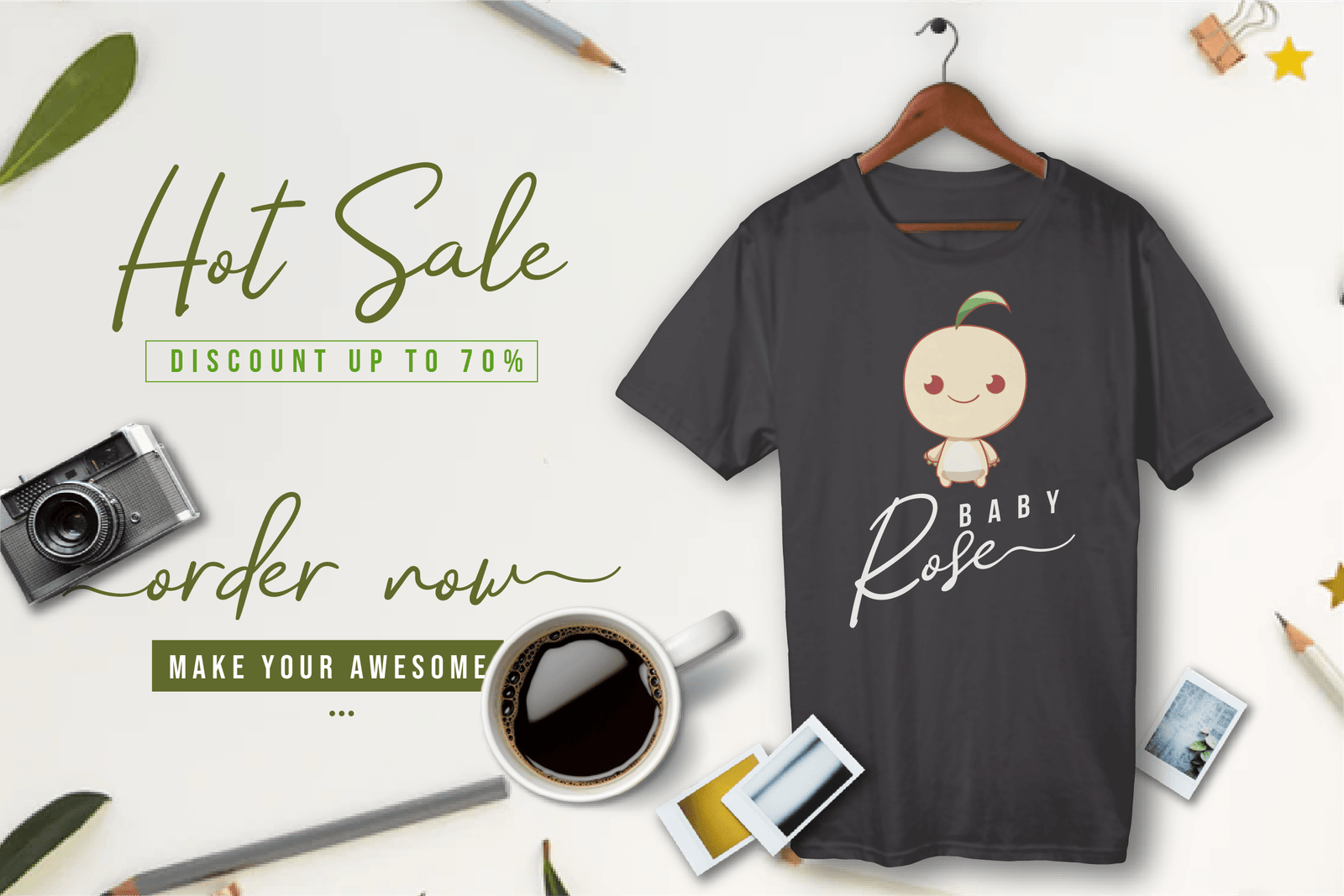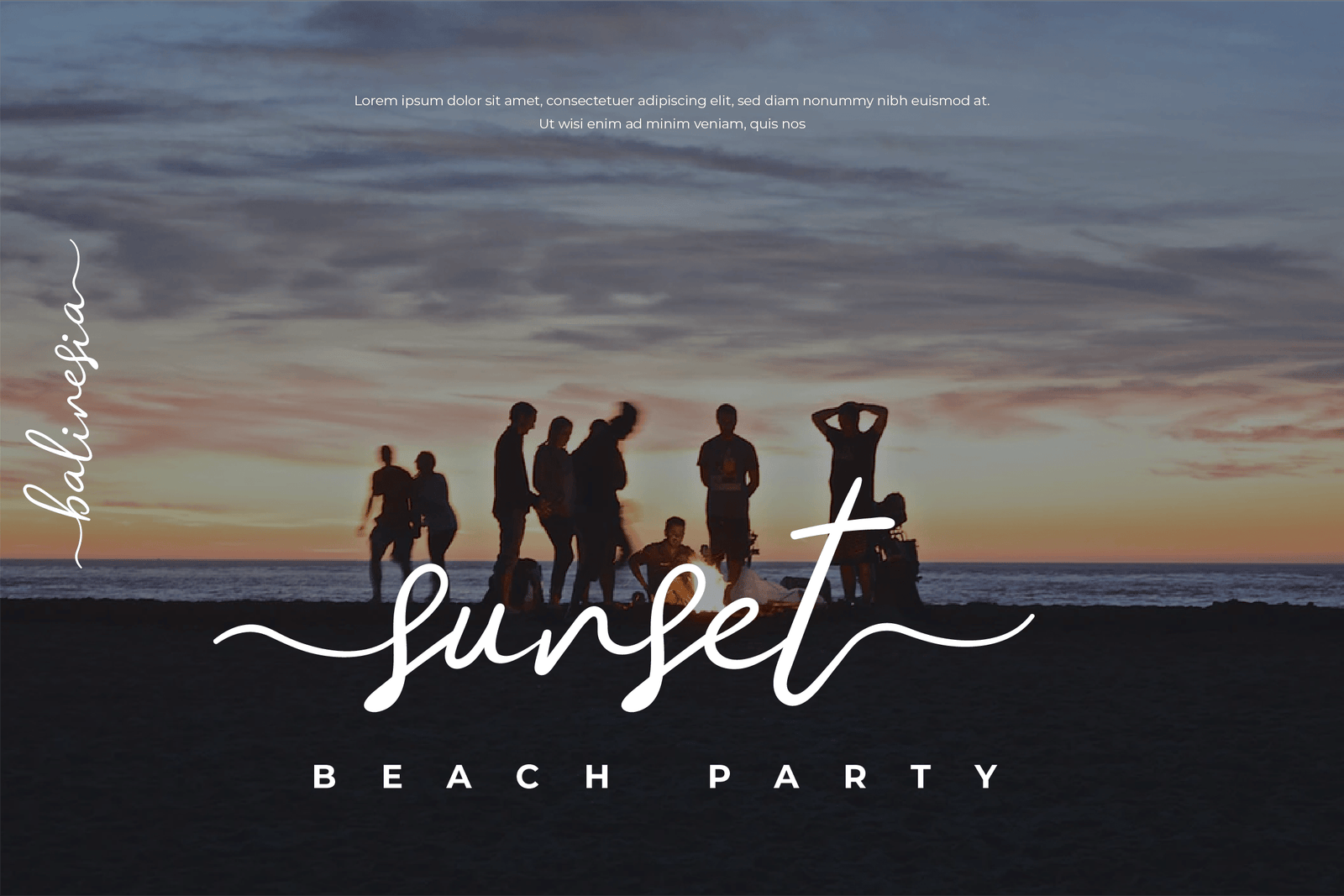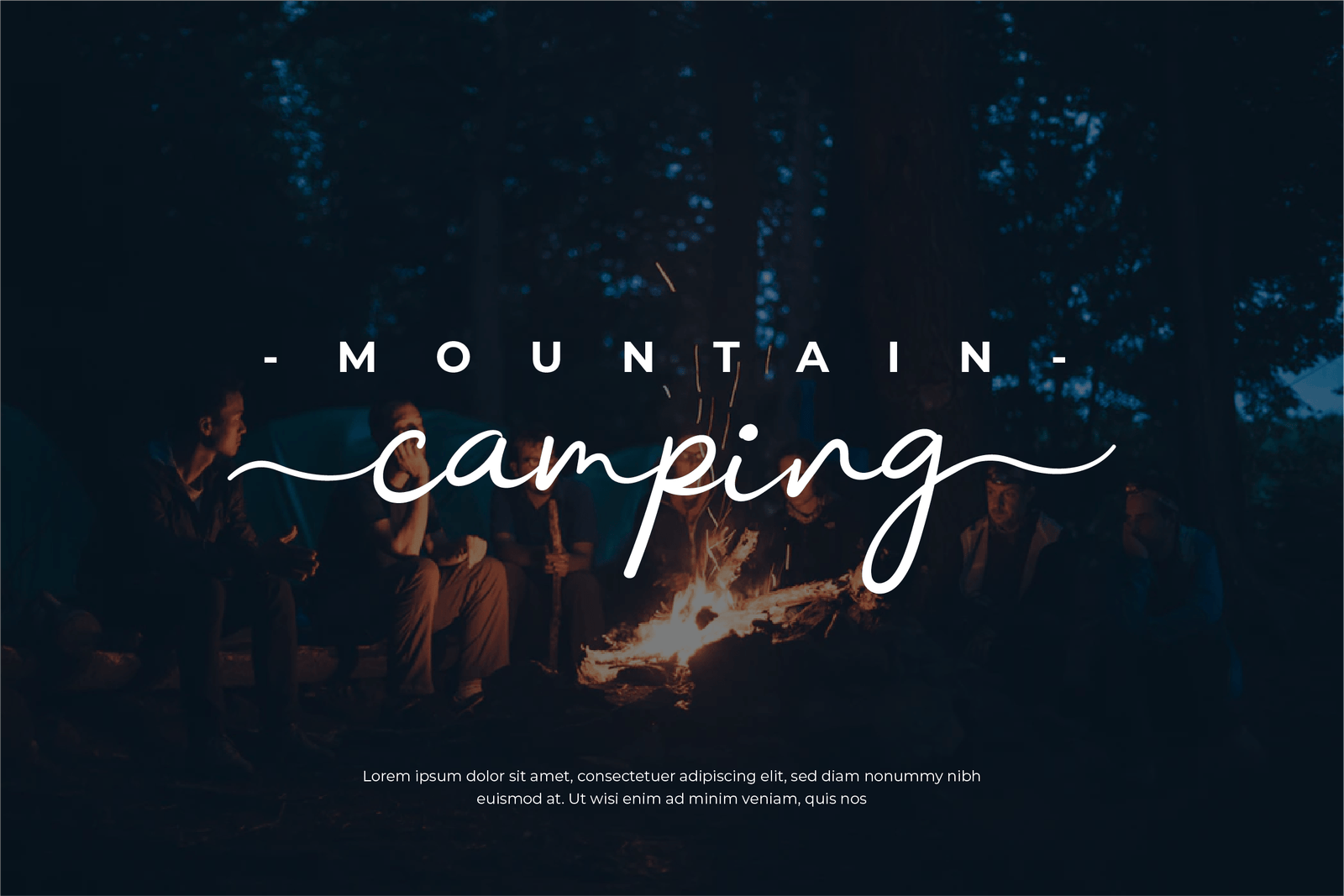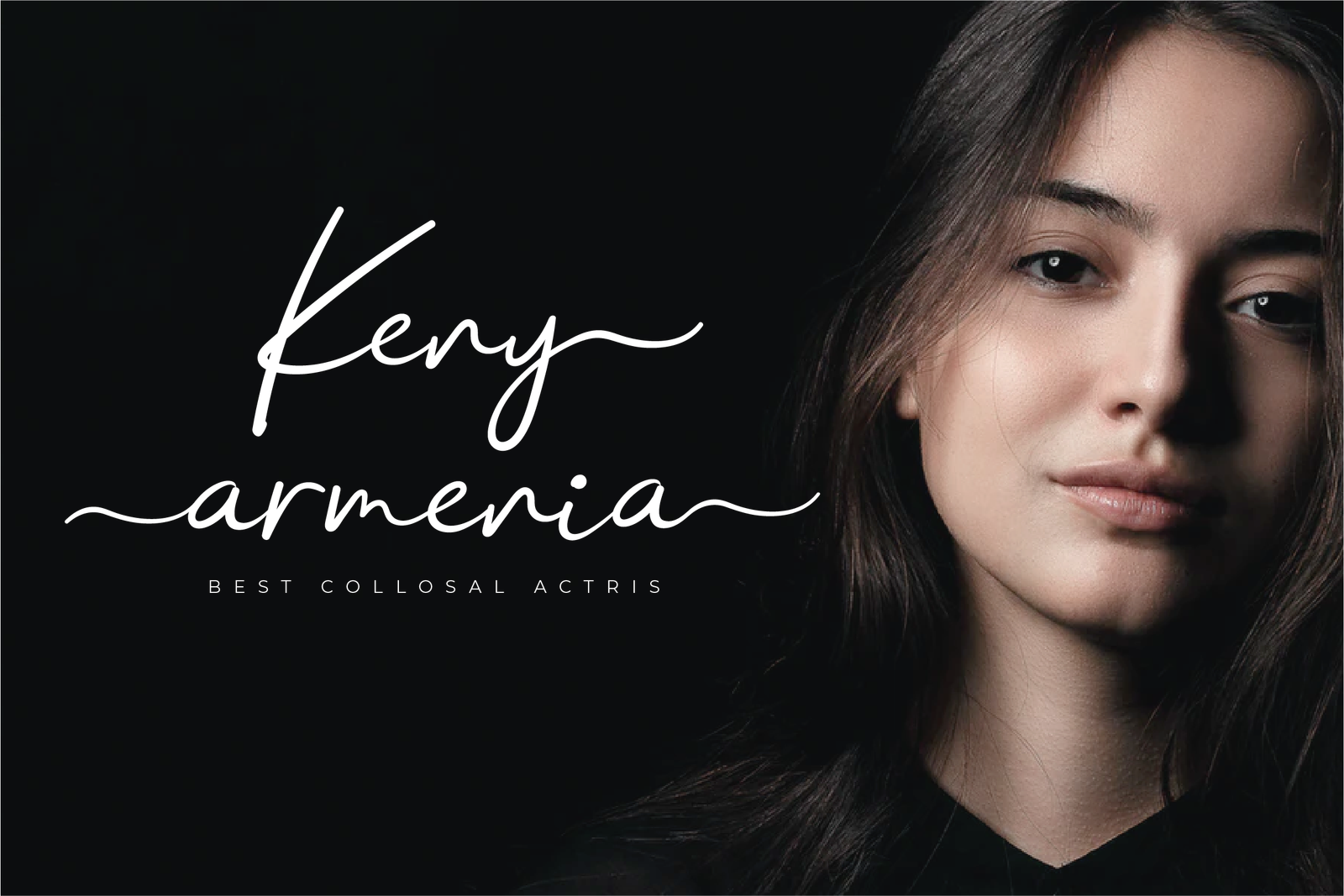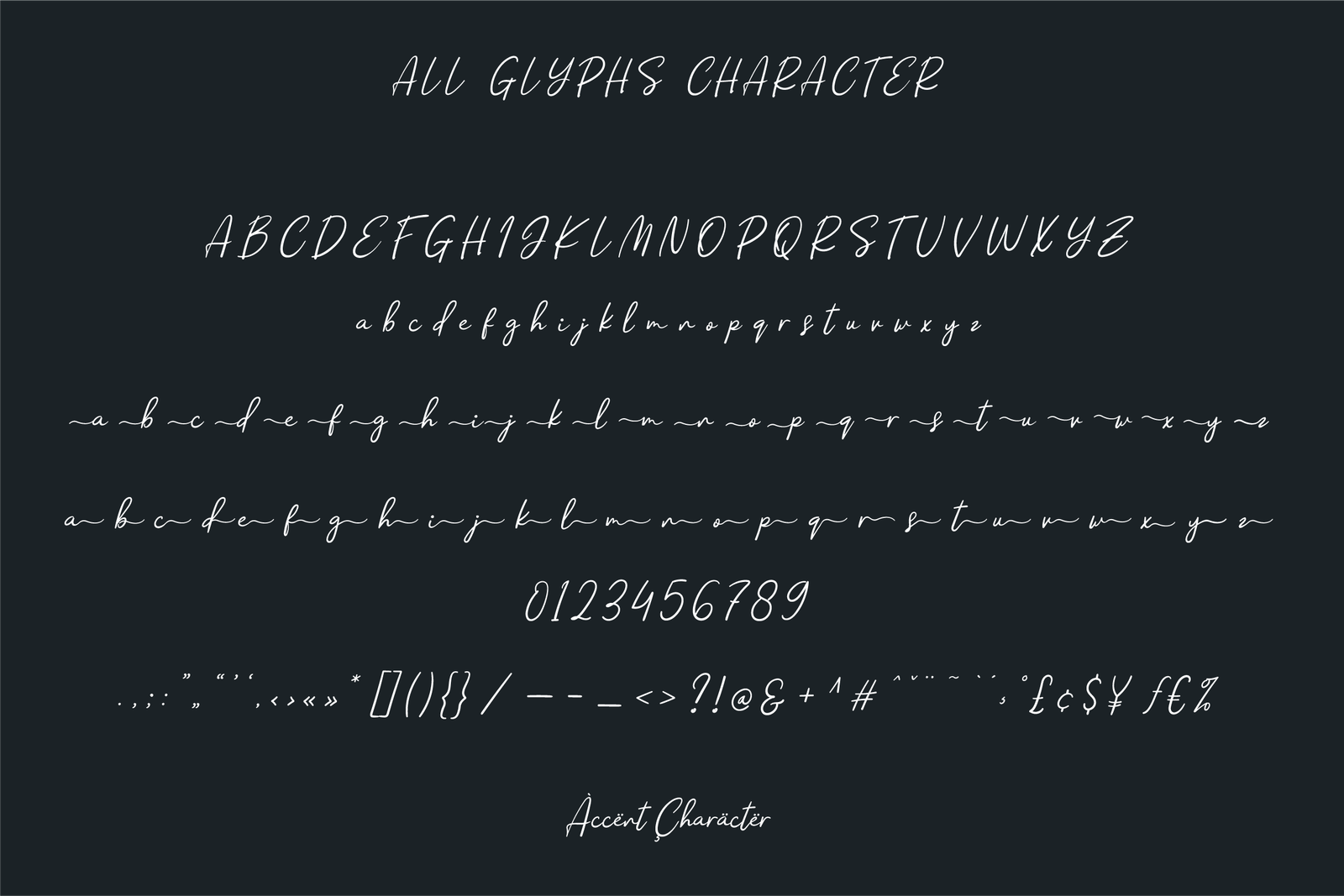
Andiny
Andiny is an exquisite handwritten font, masterfully designed to become a true favorite. It maintains its classy calligraphic influences while feeling contemporary and fresh. Fall in love with it and bring your projects to the highest levels!. Start creating awesome designs with this font!
This charming font also offers the beauty of abstract typography harmony for a wide variety of design projects, including digital natural handwriting for designs, quote designs, for social media business designs, advertisements, trademarks, food and beverage promotion banners, text, posters, a signature, and all designs require handwriting or whatever design you want.
• Fonts include multilingual support for; Afrikaans, Albanian, Croatian, Czech, Danish, Dutch, English, Estonian, Finnish, French, German, Hungarian, Italian, Norwegian, Polish, Portuguese, Slovak, Slovenian, Spanish, Swedish